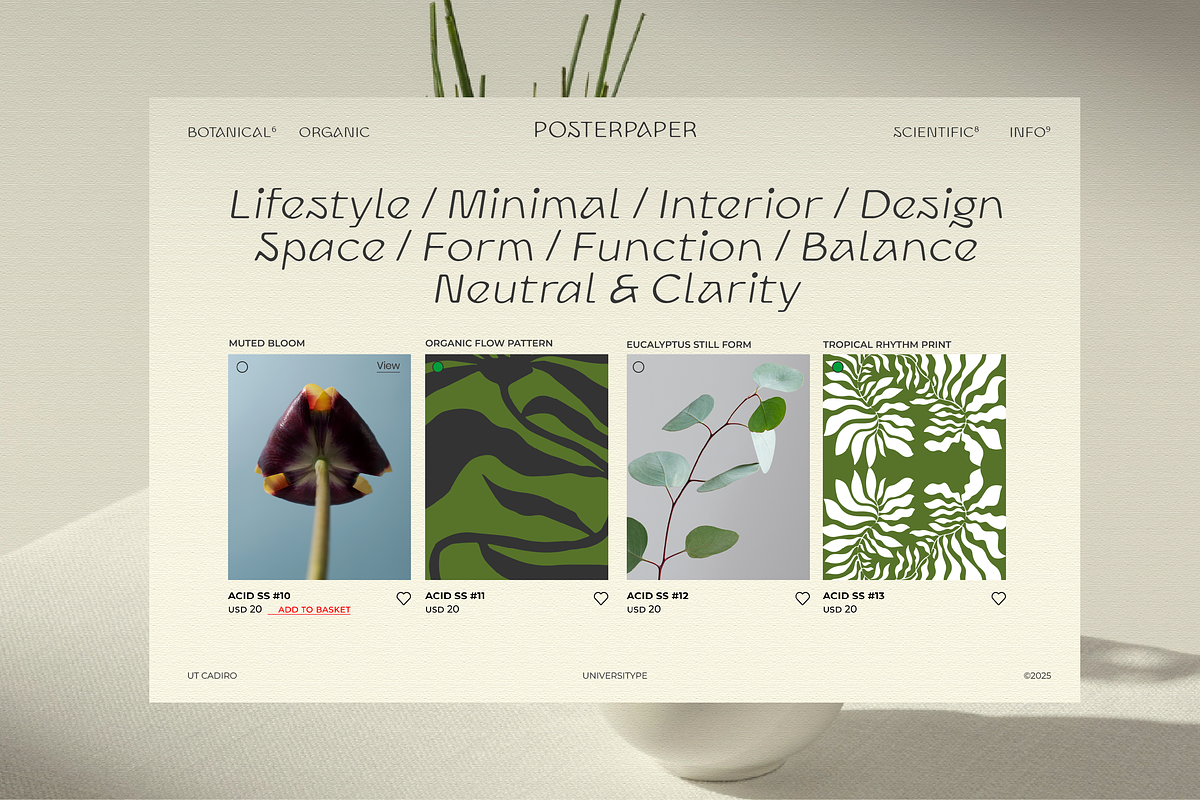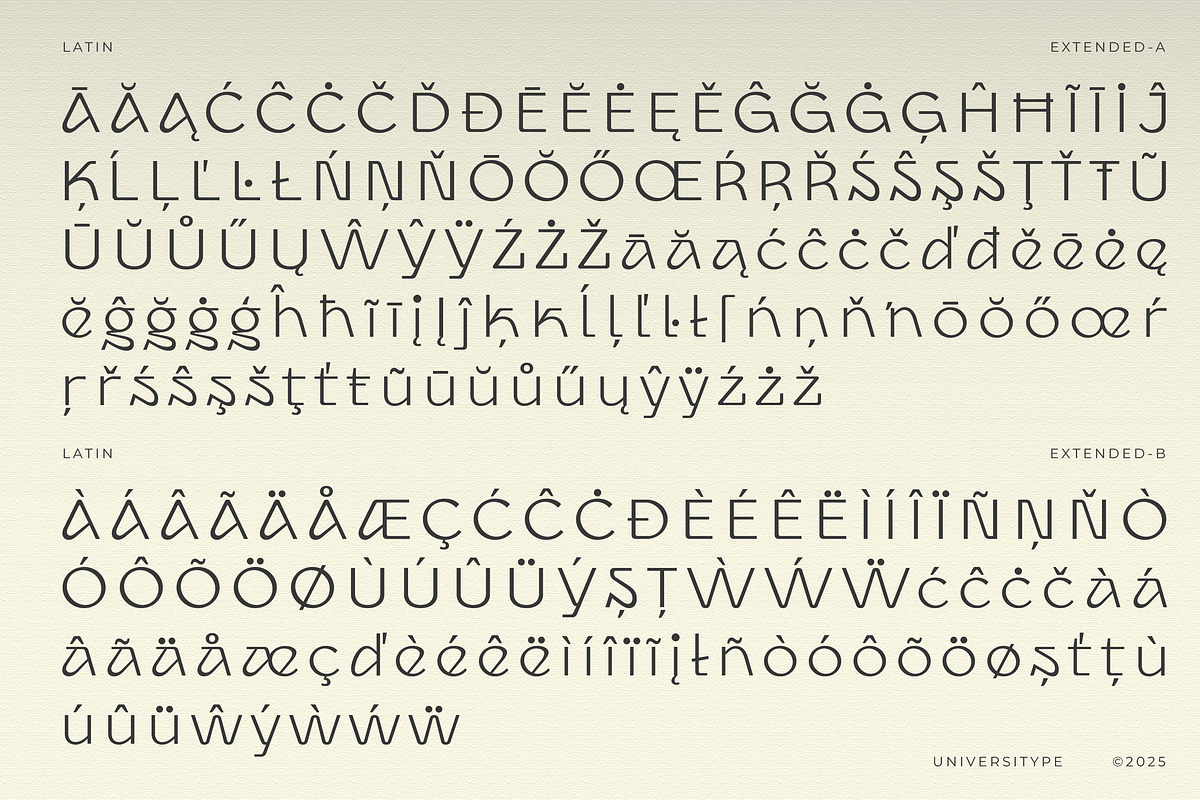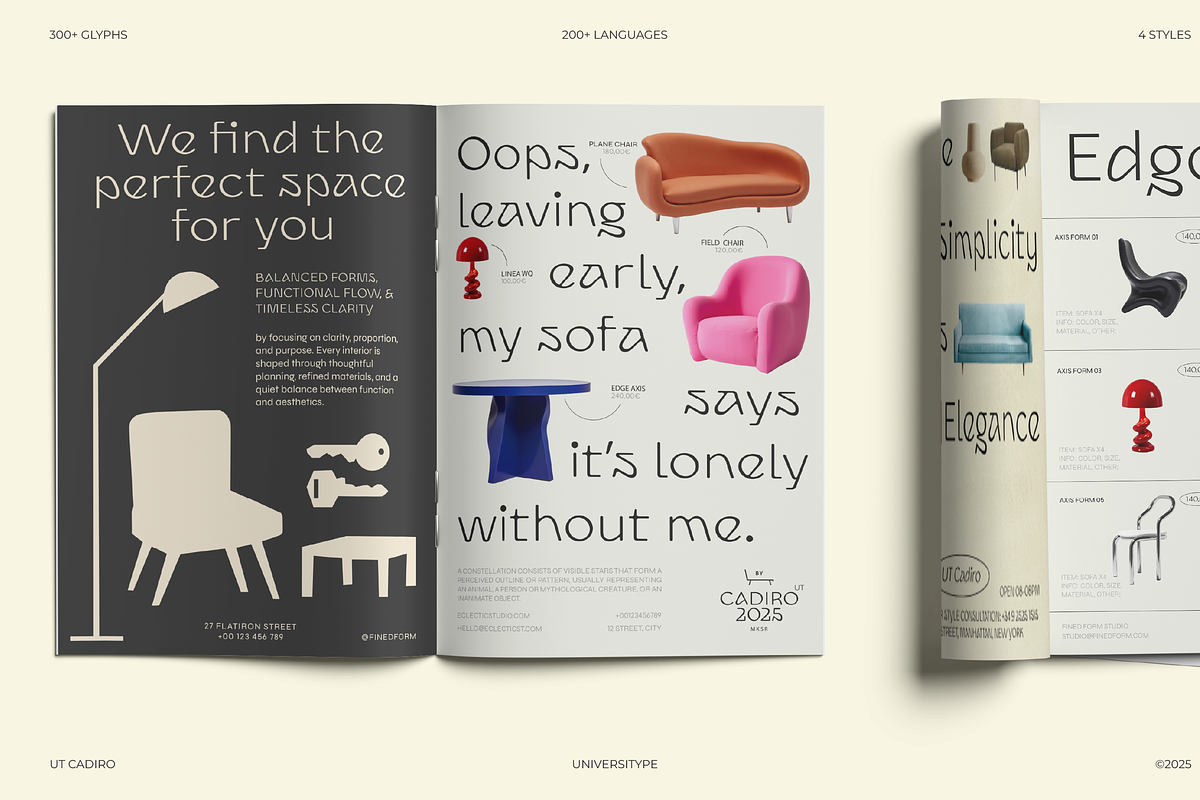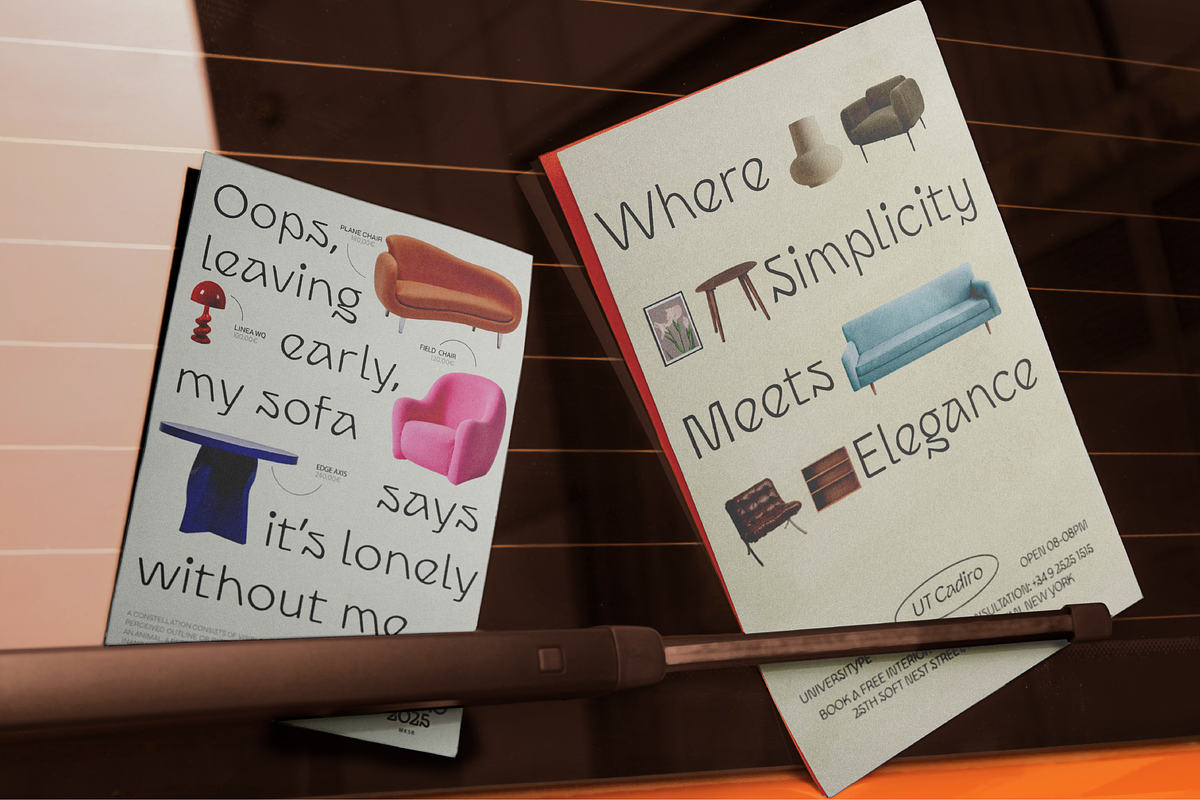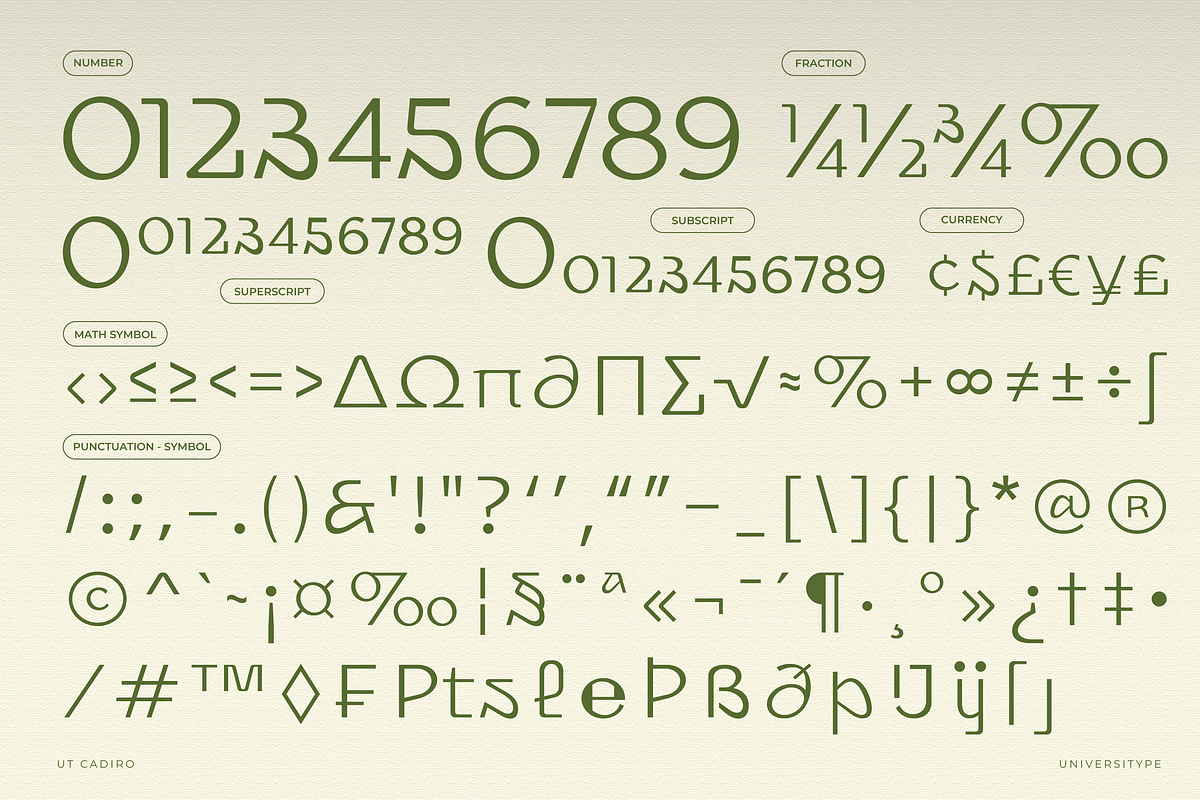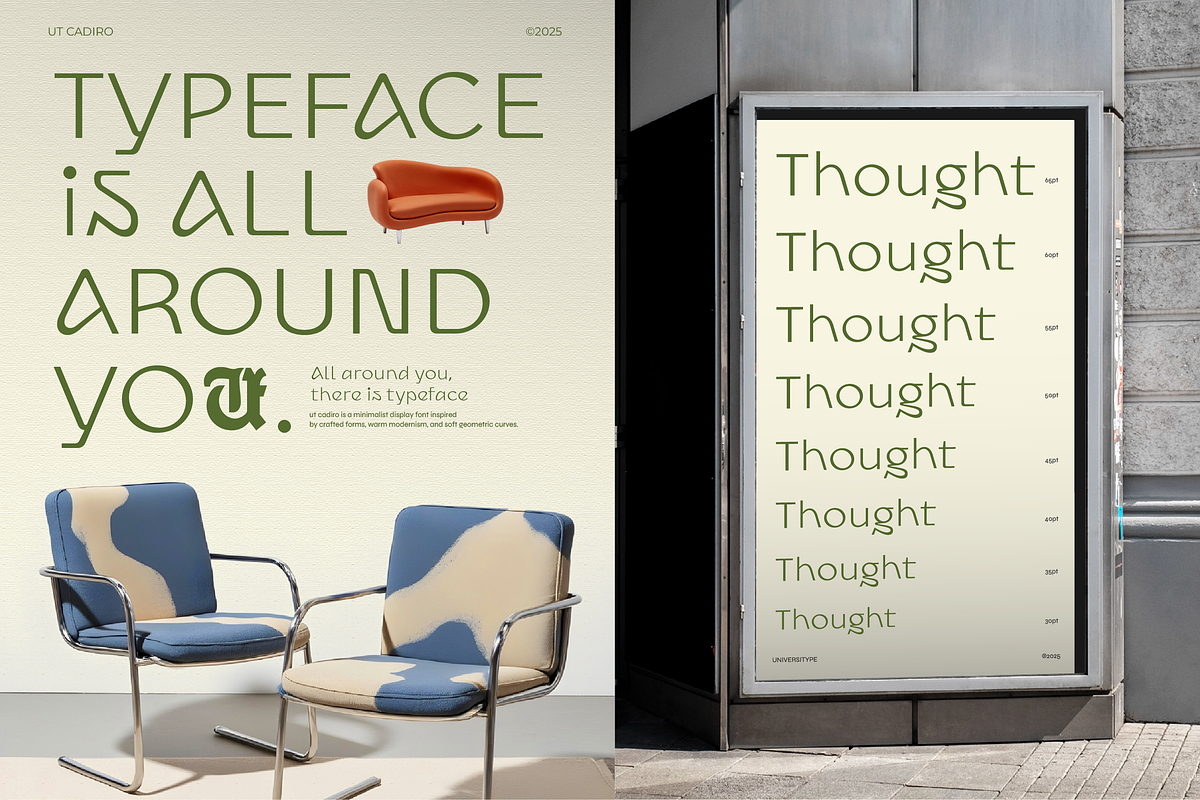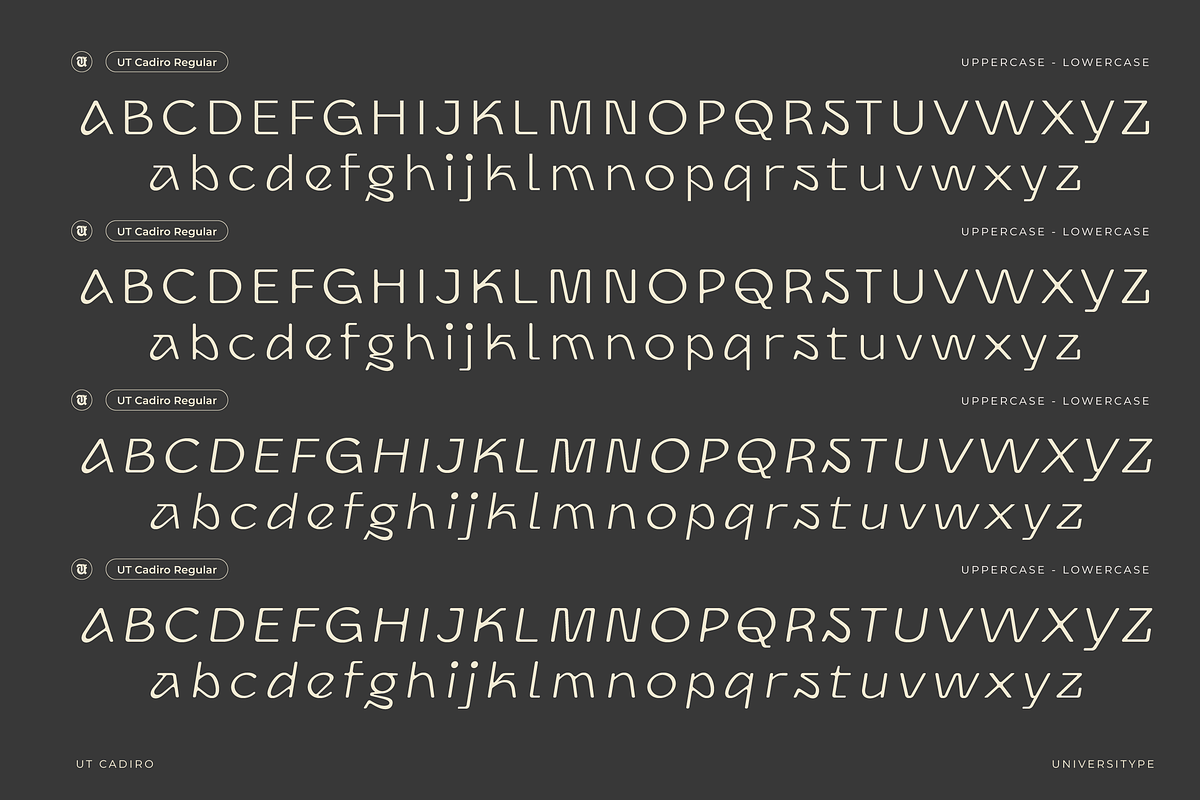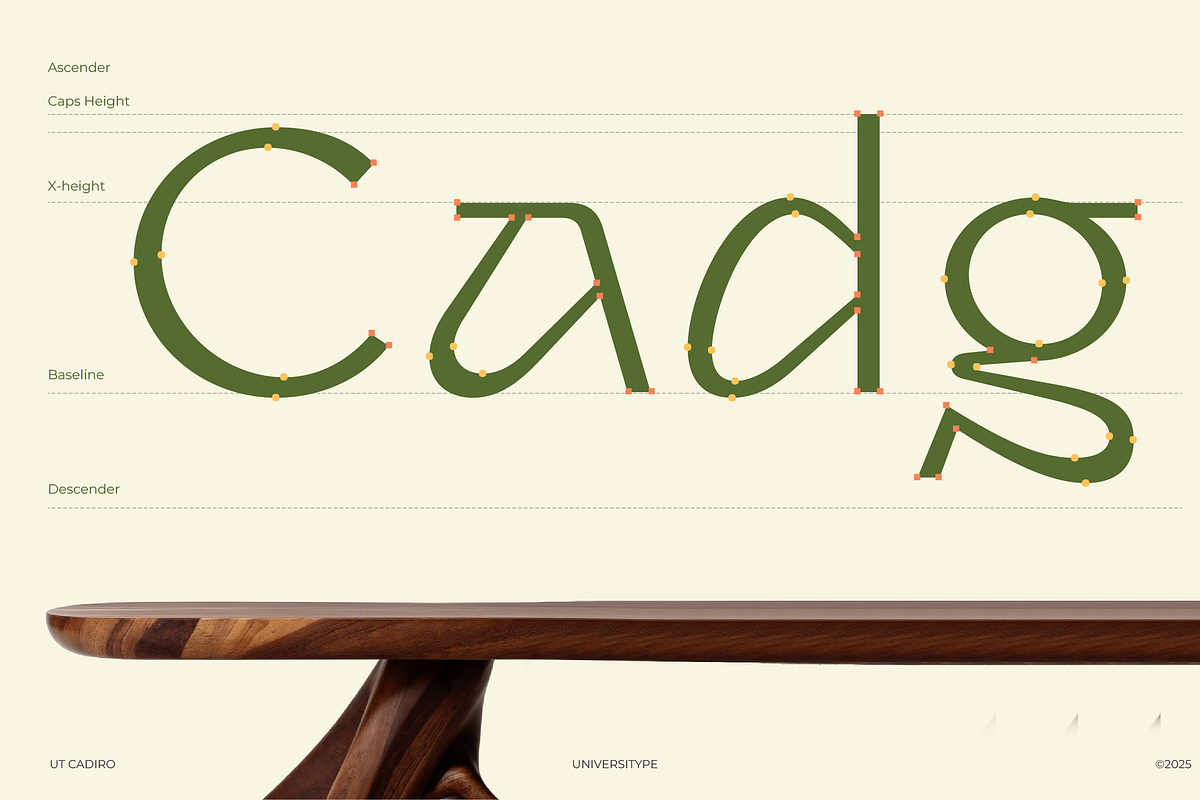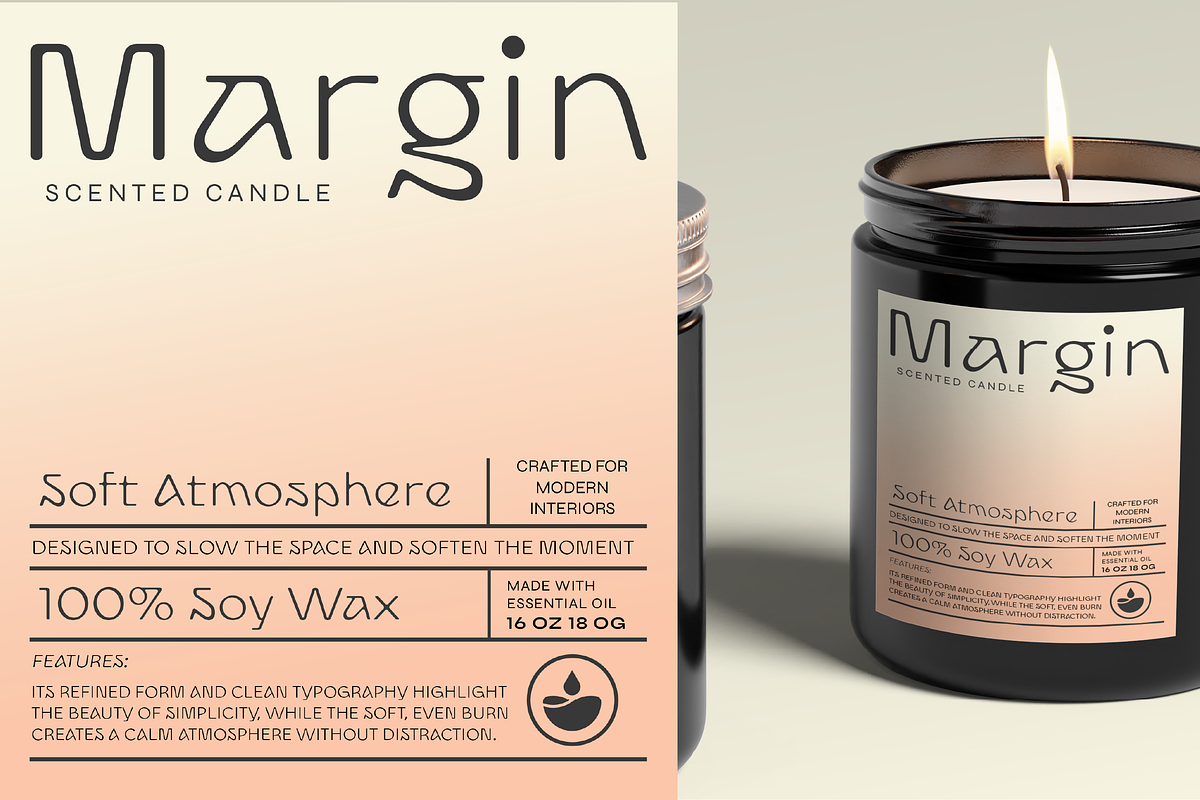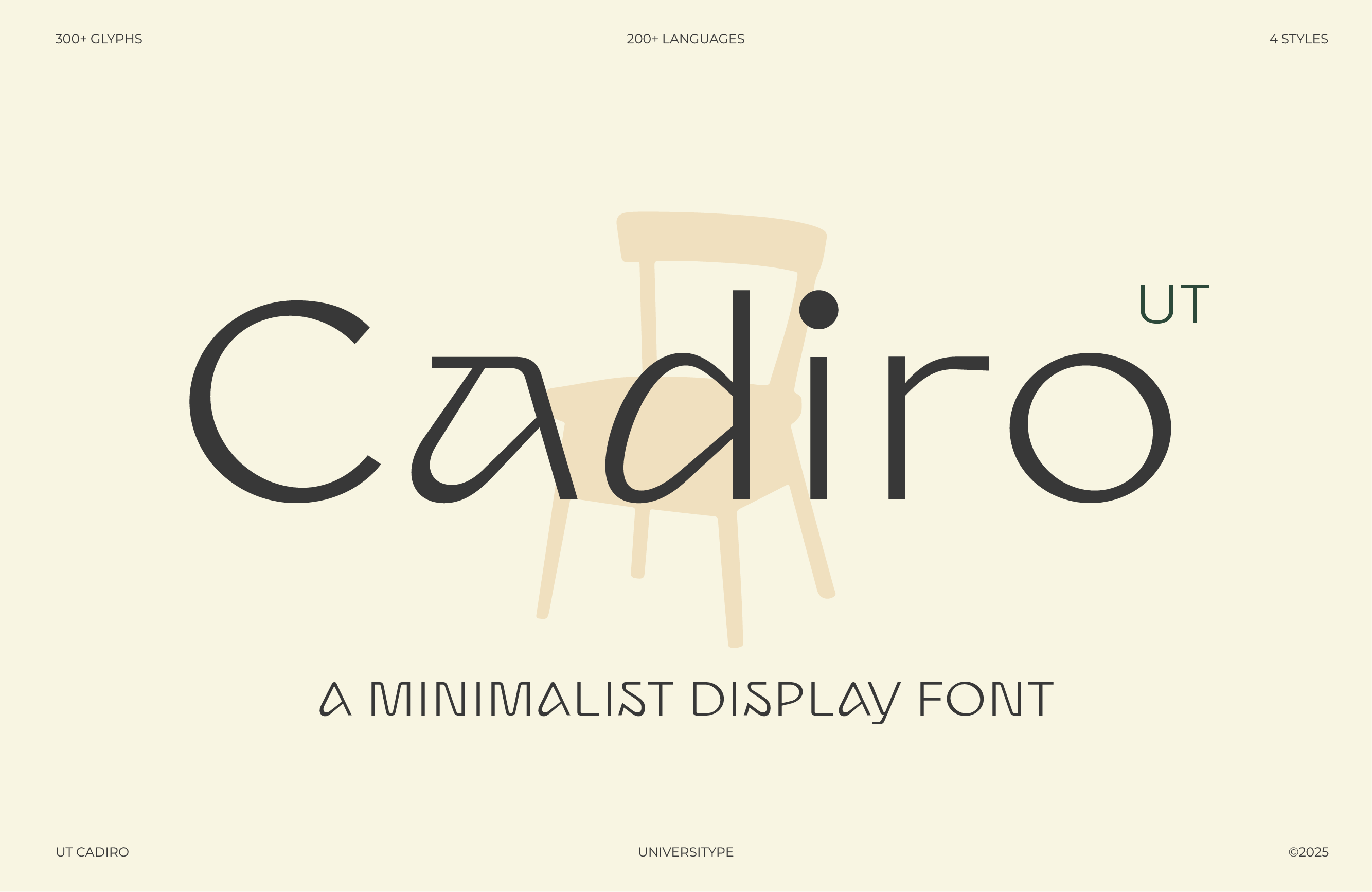
UT Cadiro-A Minimalist Display Font
UT Cadiro is a minimalist display typeface shaped by soft geometry and warm restraint. Its letterforms feel intentional and relaxed, with rounded terminals and gentle curves that bring a quiet sense of balance to any layout. Designed to sit comfortably in modern visual spaces, UT Cadiro delivers clarity without feeling cold, and personality without visual noise. It works best when given space to breathe, letting its rhythm and proportions speak naturally.
Key Features :
- Minimalist display construction with soft geometric forms
- Rounded terminals that feel friendly and composed
- Balanced proportions for clean headline rhythm
- Subtle organic details that prevent stiffness
- Consistent stroke weight optimized for large sizes
- Four cohesive styles designed to mix seamlessly
Inspiration Behind the Design:
UT Cadiro draws inspiration from modern office interiors, contemporary furniture, and thoughtfully designed spaces. The shapes echo clean lines, floating shelves, smooth edges, and calm work environments. Rather than loud statements, the design focuses on atmosphere, where typography quietly supports space, objects, and content.
Usage Suggestions :
- Editorial headlines and magazine layouts
- Architecture and interior design branding
- Posters, exhibition graphics, and signage
- Lifestyle product packaging
- Website hero sections and visual campaigns
- Studio presentations and lookbooks
Technical details :
Font style: 4 styles
- Rounded
- Oblique
- Rounded Oblique
- Glyphs: 400+
- Language support: Multilingual
- Optimized for display and large-scale use
features :
- Numerals and punctuation
- Carefully tuned spacing and kerning
- Clean outlines suitable for print and digital use